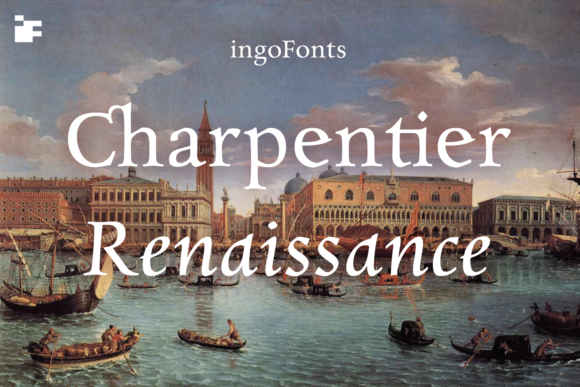
Discover the Elegance of Charpentier Renaissance Pro Font
Are you a designer or crafter looking for a font that exudes sophistication and elegance? Look no further than Charpentier Renaissance Pro, a unique and iconic serif font with a bold feel. In this article, we’ll dive into the world of Charpentier Renaissance Pro, exploring its history, features, and uses, as well as provide tips on how to make the most of this stunning font.
A Brief History of Charpentier Renaissance Pro
Charpentier Renaissance Pro is a modern take on traditional serif fonts, inspired by the works of French typographer and printer, Jacques Charpentier. The original Charpentier font was created in the 16th century and was known for its distinctive bold and elegant style. The modern version, Charpentier Renaissance Pro, has been carefully crafted to pay homage to its heritage while offering a fresh and contemporary look.
Key Features of Charpentier Renaissance Pro
So, what makes Charpentier Renaissance Pro so special? Here are some of its key features:
- Unique and Iconic Design: Charpentier Renaissance Pro boasts a distinctive serif design with a bold feel that’s sure to turn heads.
- Highly Legible: Despite its bold nature, Charpentier Renaissance Pro remains highly legible, making it perfect for use in a variety of applications, from headings to body text.
- Wide Range of Weights: Charpentier Renaissance Pro comes in a range of weights, from light to bold, allowing you to use it for a variety of design applications.
- Proportional and Monospaced Variants: The font offers both proportional and monospaced variants, giving you even more flexibility in your designs.
Uses of Charpentier Renaissance Pro
Charpentier Renaissance Pro is a versatile font that can be used in a wide range of design applications, including:
- Print Design: Use Charpentier Renaissance Pro for headings, titles, and body text in brochures, posters, and other print materials.
- Digital Design: Charpentier Renaissance Pro is perfect for use in digital applications, such as website headers, social media graphics, and email marketing campaigns.
- Branding and Identity: The font’s bold and elegant style makes it an excellent choice for logos, business cards, and other branding materials.
Tips for Using Charpentier Renaissance Pro
To get the most out of Charpentier Renaissance Pro, here are some tips to keep in mind:
- Pair it with a Sans-Serif Font: Charpentier Renaissance Pro pairs beautifully with sans-serif fonts, creating a striking contrast that’s sure to enhance your design.
- Experiment with Weights and Styles: Don’t be afraid to experiment with different weights and styles to find the perfect combination for your design.
- Use it for Headings and Titles: Charpentier Renaissance Pro is perfect for use in headings and titles, where its bold and elegant style can really shine.
In conclusion, Charpentier Renaissance Pro is a unique and iconic serif font with a bold feel that’s sure to elevate your designs. With its highly legible design, wide range of weights, and proportional and monospaced variants, this font is perfect for use in a variety of applications, from print design to digital design and branding. By following the tips outlined in this article, you can make the most of Charpentier Renaissance Pro and create stunning designs that are sure to impress.